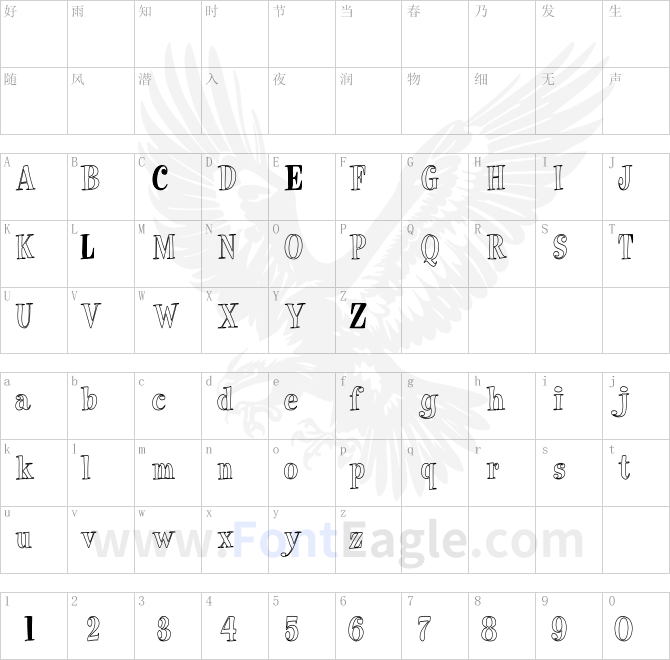
Pixie-HC is a great font, widely used in graphic design, single-page menu design, poster design and other fields, and is deeply loved by designers.Pixie-HC download.